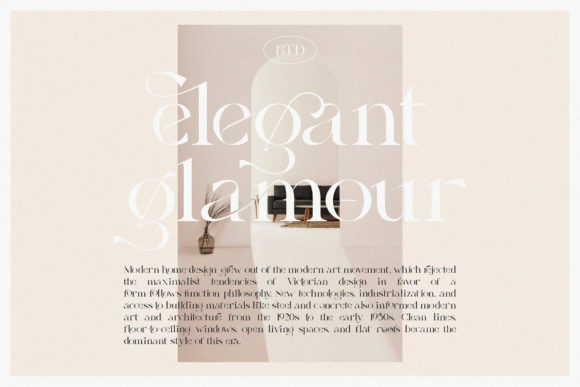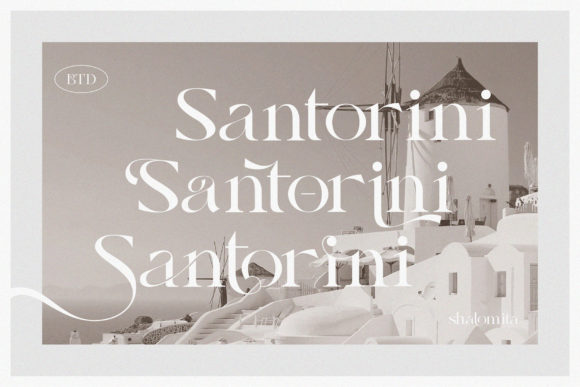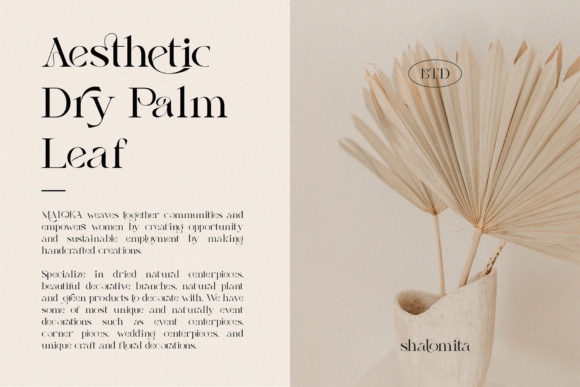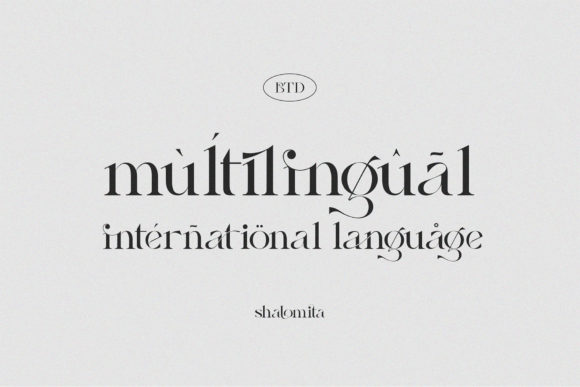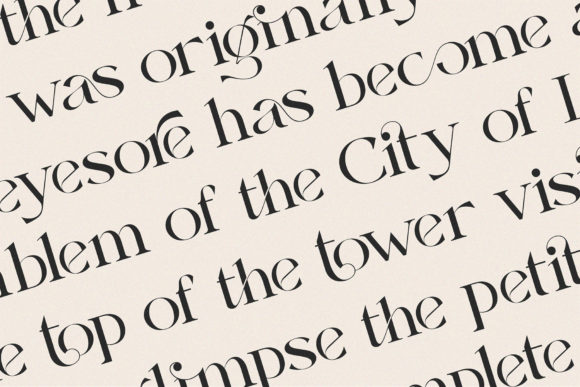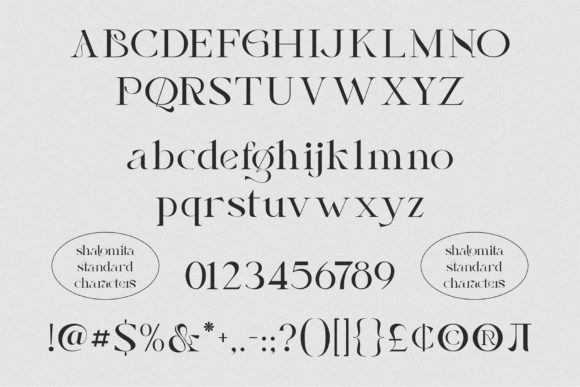
Shalomita Font
Introducing Shalomita, a modern ligature serif font with elegant style. It’s an easy way & perfect choice to make your design projects; logo, branding, invitation, social media ads & website have classy looks, just type and add this font….ta daaa! You will be surprised by the result.